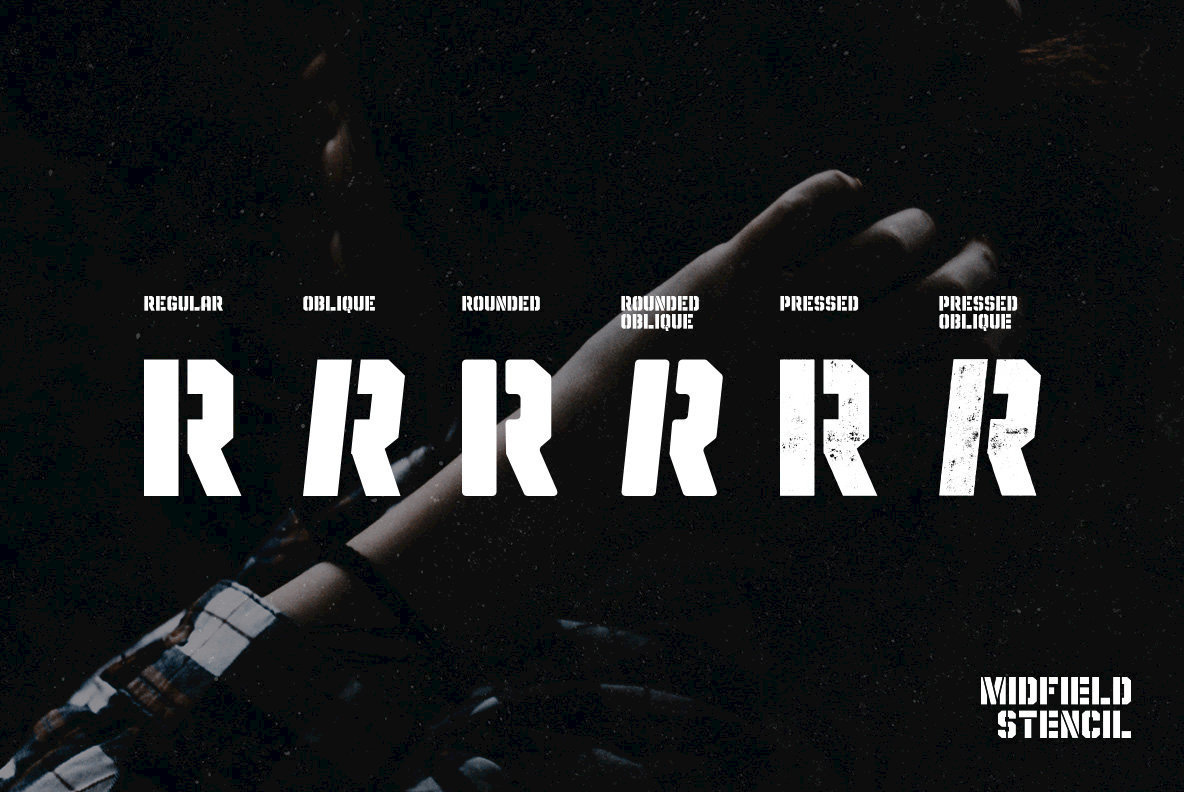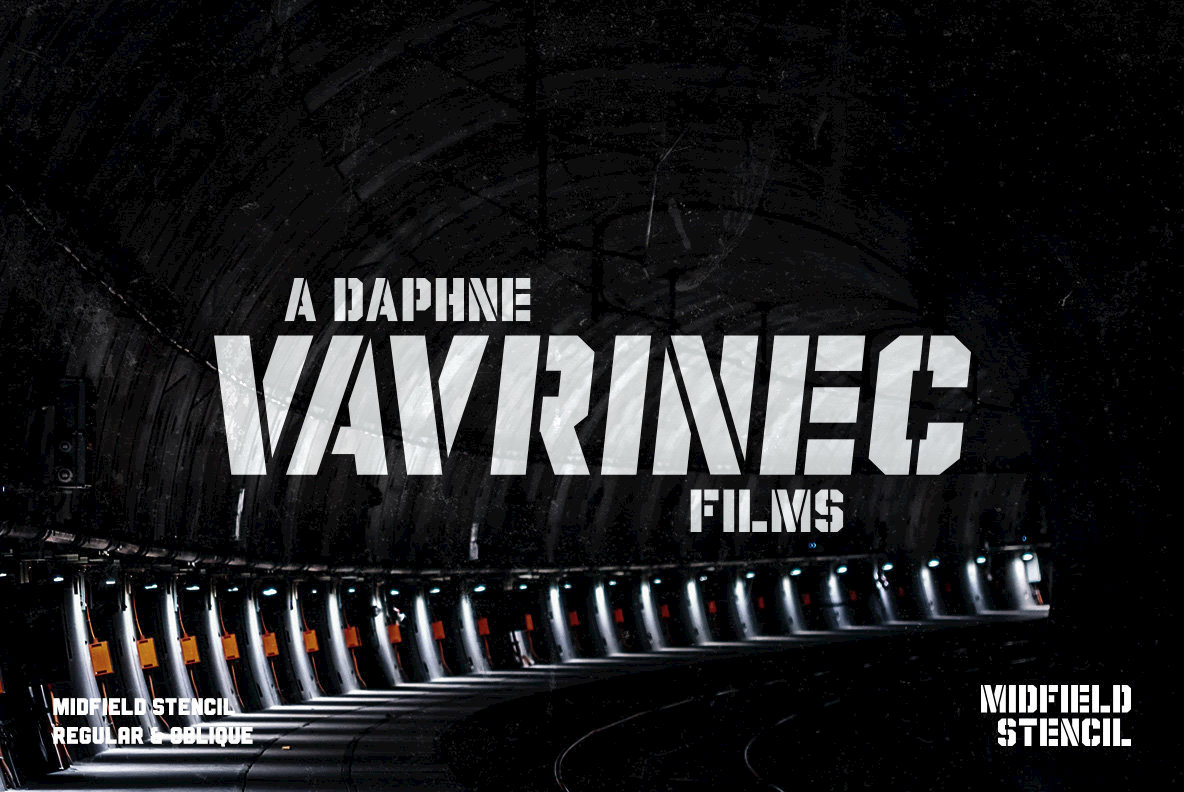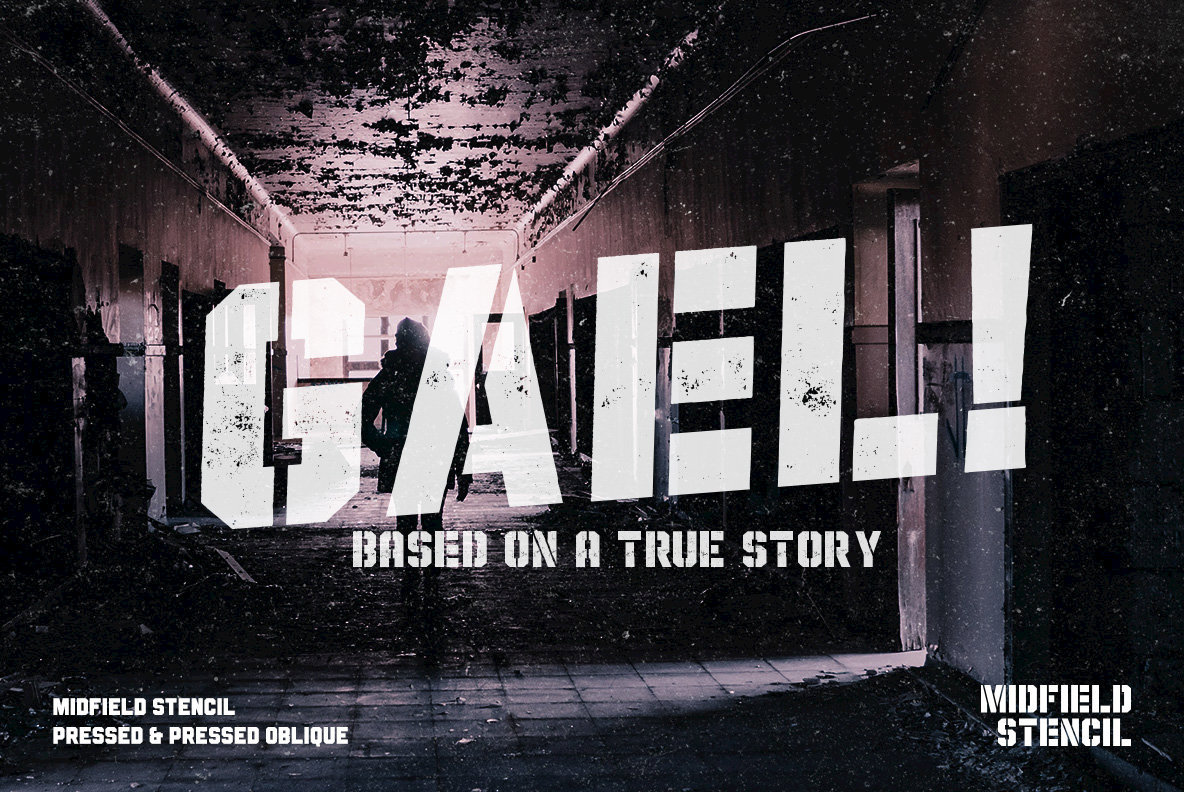
Midfield Stencil Font
Midfield Stencil Family is All Caps display typeface with solid, masculine, urban, sporty & bold character. 390+ glyphs each styles with Multilanguage support, Contextual Alternates - Ready for the game!
Each glyph is very well suited to make an interesting quote, headline & striking poster design. This font is perfect for logos, badges, clothing, signage, posters, and much more!